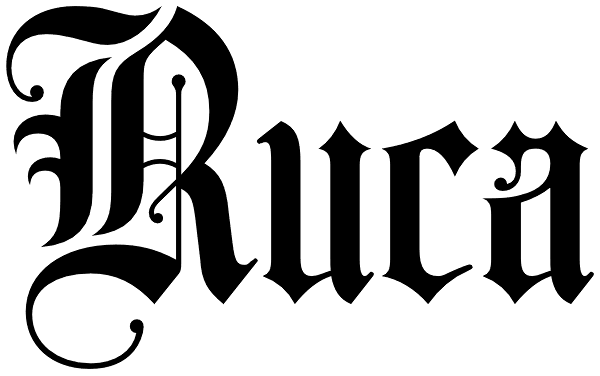
Ruca
Since my first contact with blackletters in 1999, I became more and more fascinated by these artistic looking typefaces. It all started in the USA at the age of 16, when I took an art class. I decided to trace some blackletter typefaces because they...